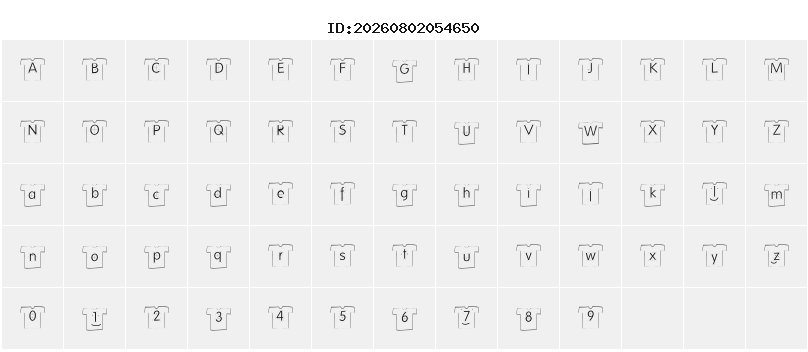
MKonstrukTshirts Preview
About MKonstrukTshirts.ttf
MKonstrukTshirts.ttf is a modern, elegant sans-serif font designed for ultimate readability and visual harmony. Perfect for branding, headlines, web design, and print materials.